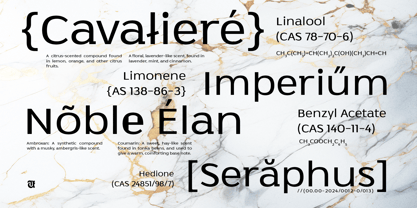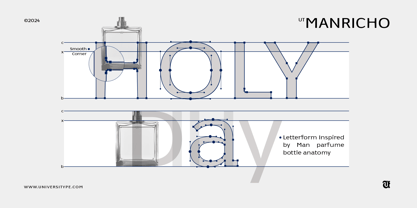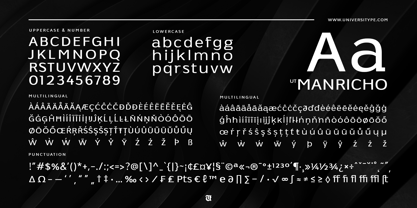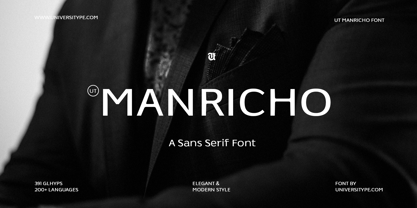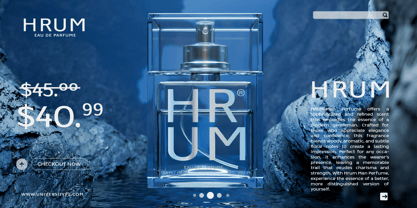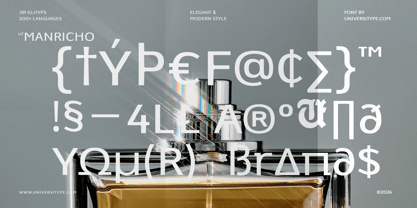
UT Manricho
von Universitype
Die Schriftfamilie UT Manricho wurde von Muh. Aswar, Novan Arisandi entworfen und von Universitype veröffentlicht. UT Manricho enthält 1 Stile.
UT Manricho is a typeface crafted to embody sophistication, elegance, and modern refinement. Drawing inspiration from the sleek contours of luxury perfume bottles, its design merges timeless beauty with contemporary functionality.
From its bold uppercase forms to its clean, readable lowercase letters, UT Manricho delivers versatility that suits a wide range of creative projects, whether you’re designing for print, digital, or branding purposes.
This typeface is ideal for those who appreciate thoughtful typography that enhances every design it touches. Its bold characters make a striking impression in headlines, while its elegant proportions bring clarity and professionalism to body text. Whether used for marketing materials, website elements, or logo designs, UT Manricho adapts effortlessly, ensuring your message stands out with style and precision.
Designed with creative flexibility in mind, UT Manricho includes alternates, stylistic sets, and ligatures that add an extra layer of uniqueness to your work.
In essence, UT Manricho is a tool for creating a lasting impression. Its refined letterforms and modern sensibility provide an unparalleled balance of style and substance. For those looking to elevate their designs with a touch of luxury and professionalism, UT Manricho offers a perfect blend of artistry and practicality.
Designer: Muh. Aswar, Novan Arisandi